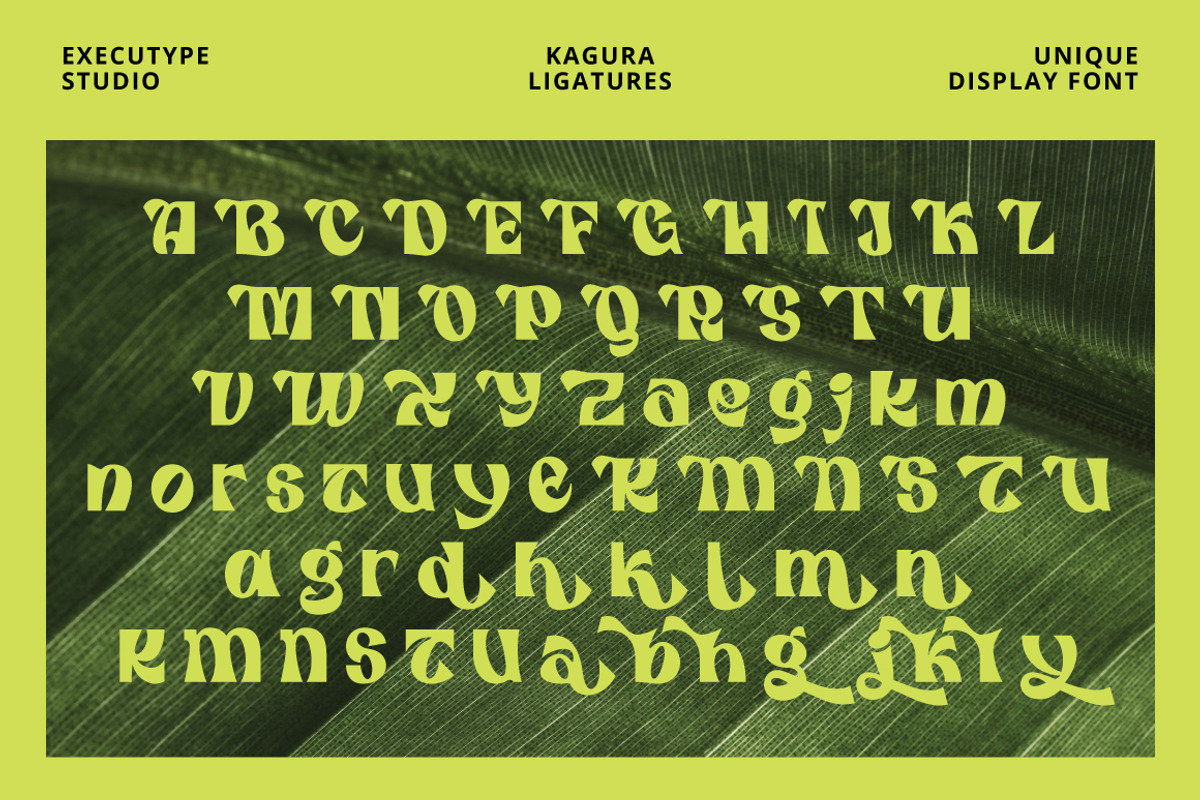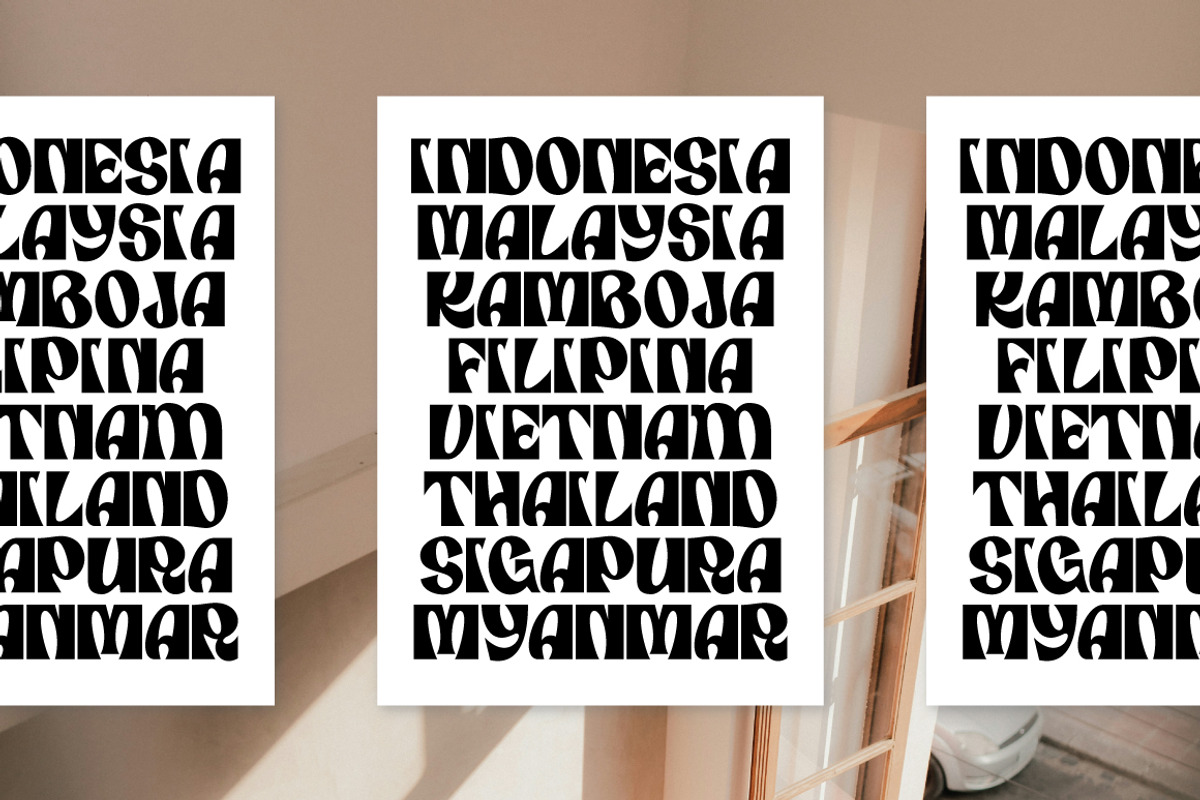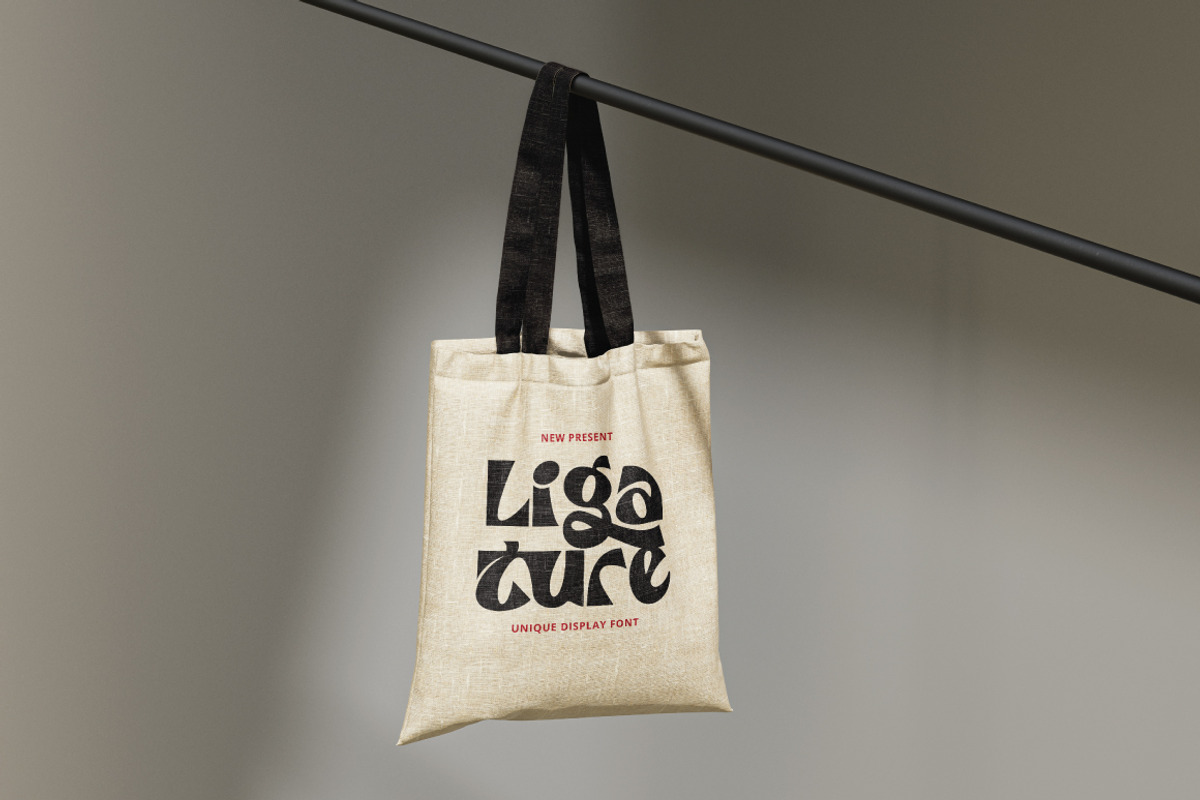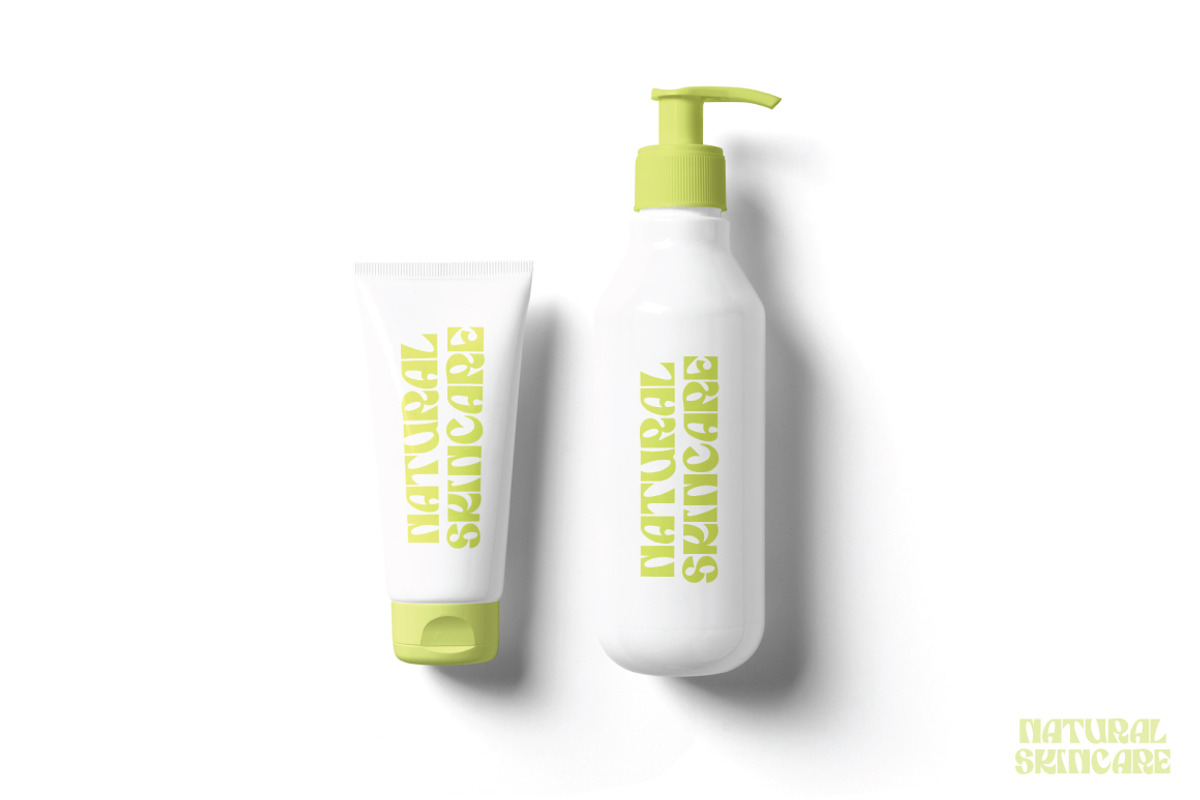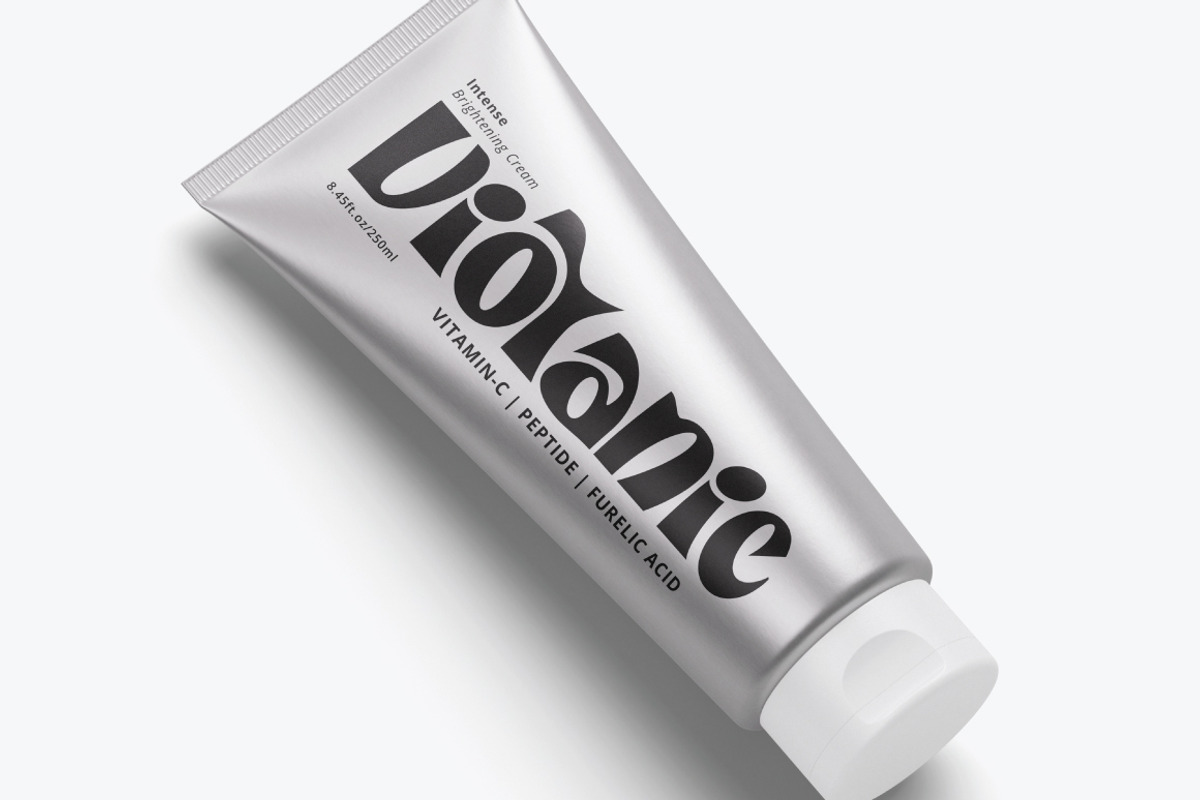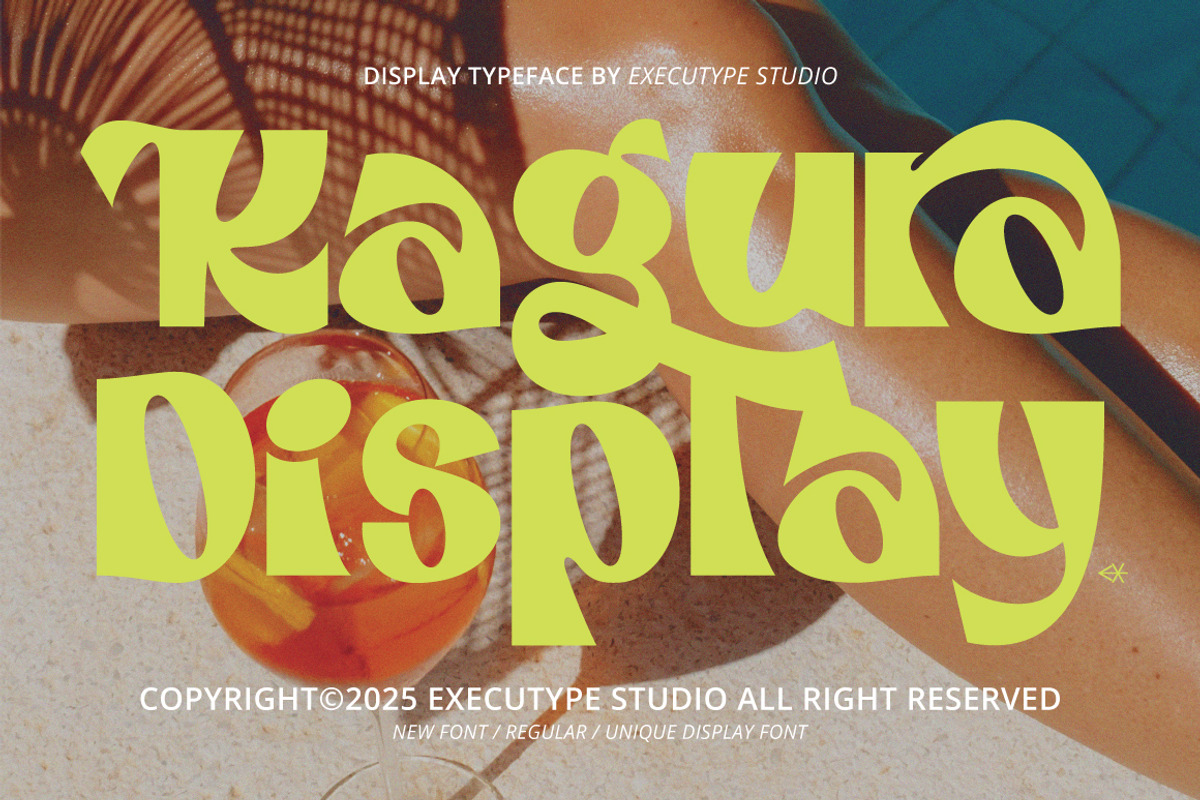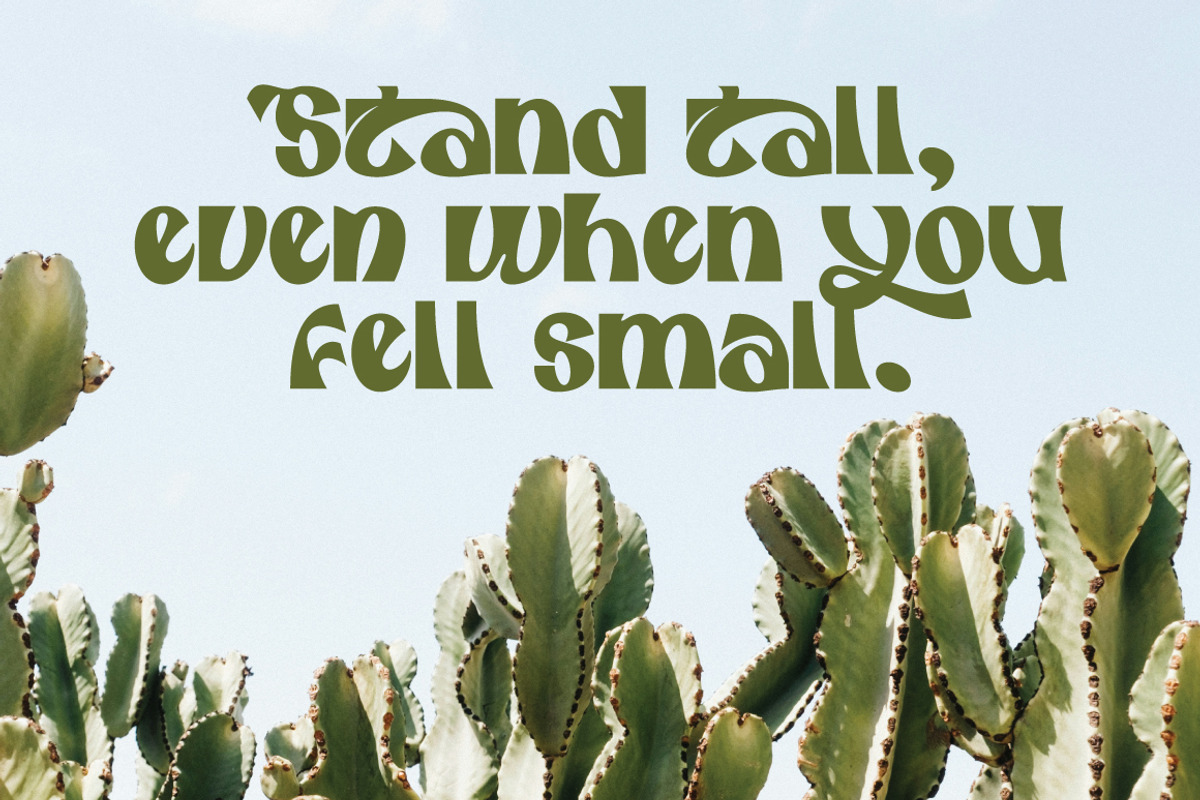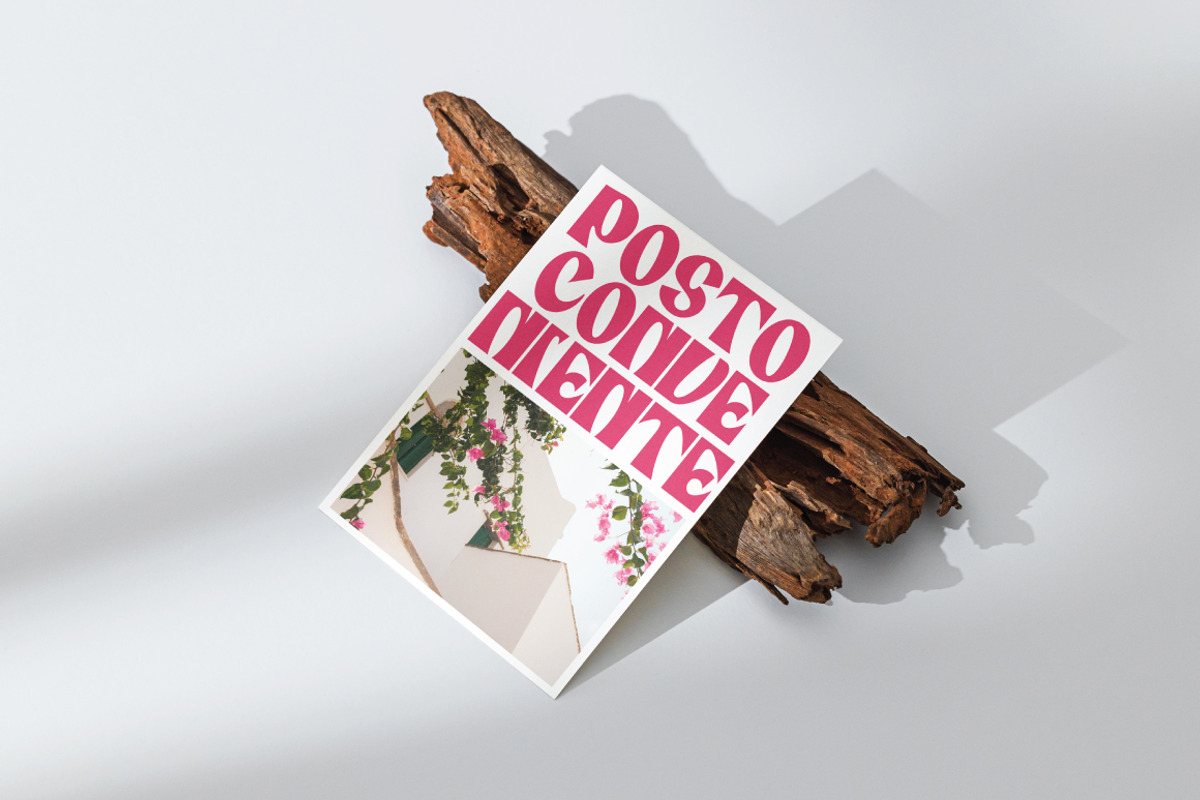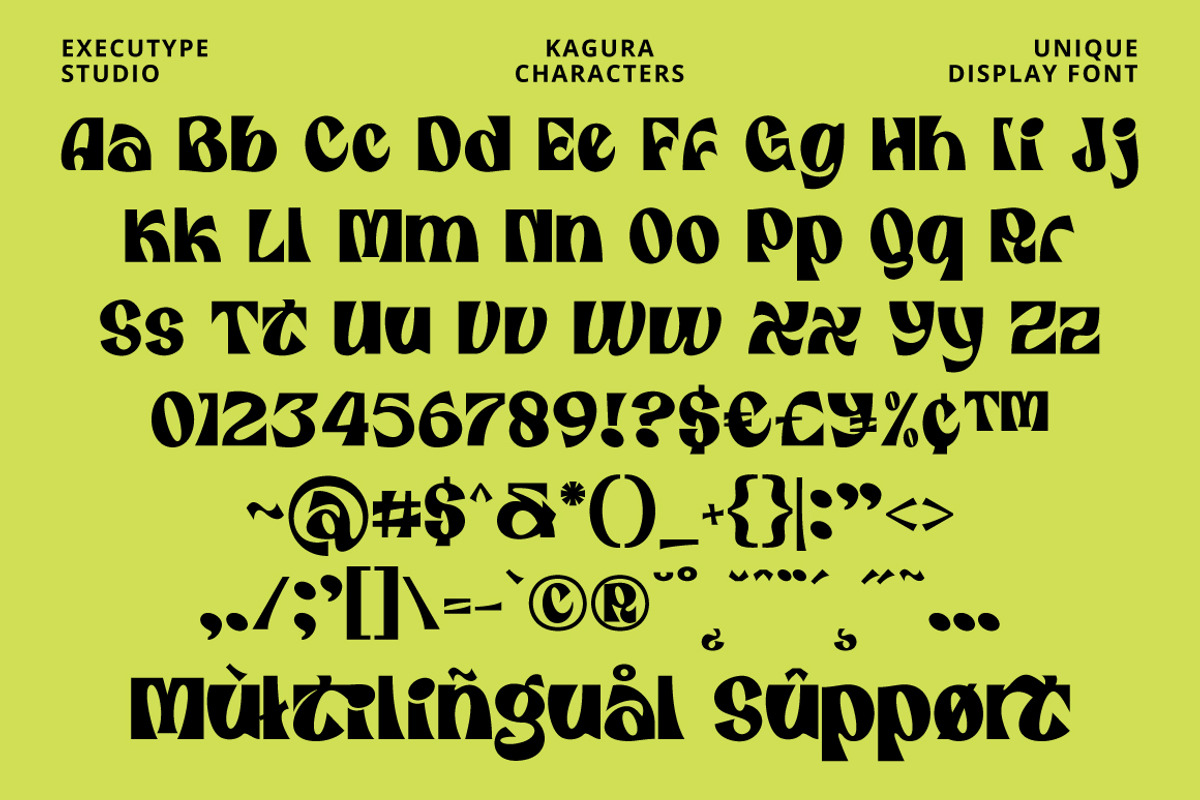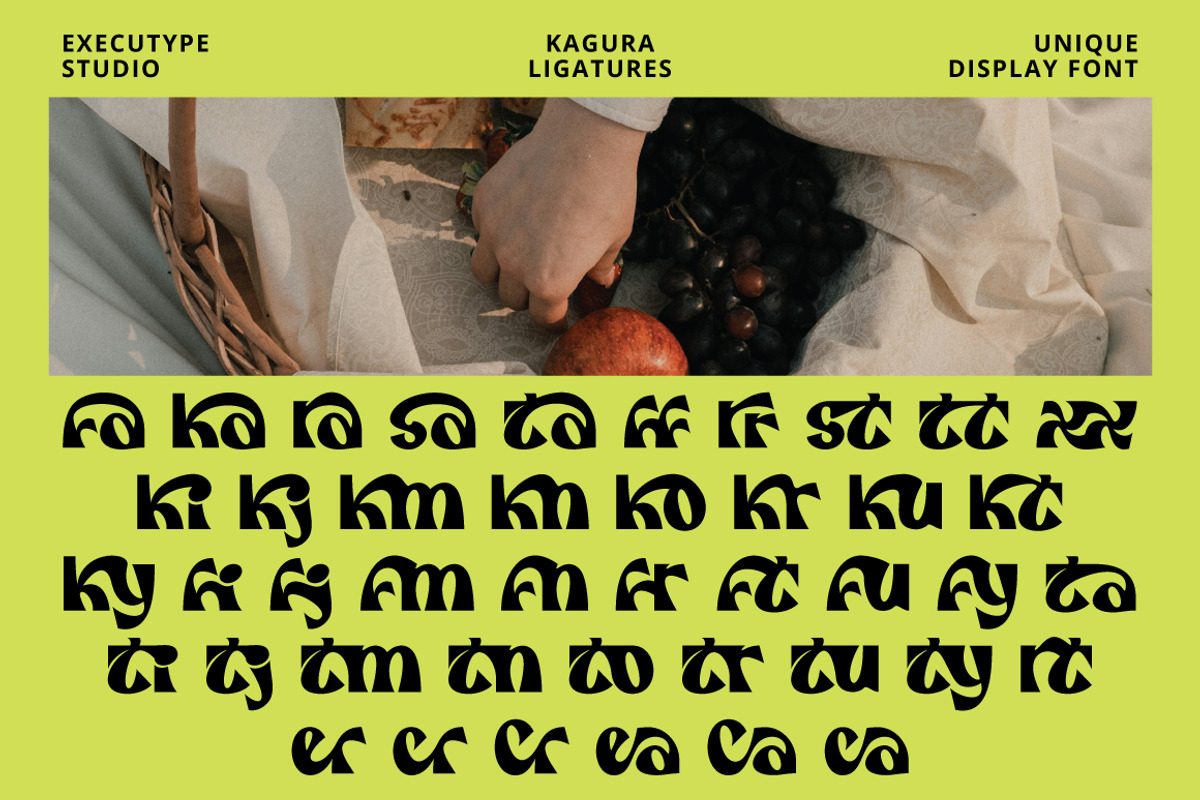
Kagura Display Font
Kagura is an Unique Display Font — a highly stylized typeface with over the top psychedelic vibes. One of a kind, certainly not the kind of typeface you see everyday. Utterly unique. A good choice for a bold soul.
- Ligatures Character